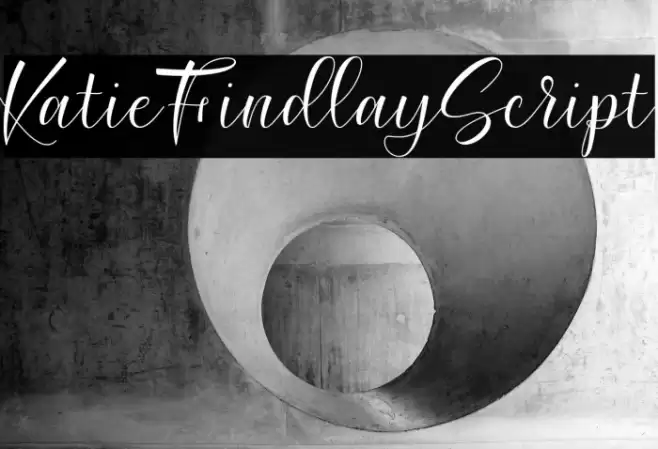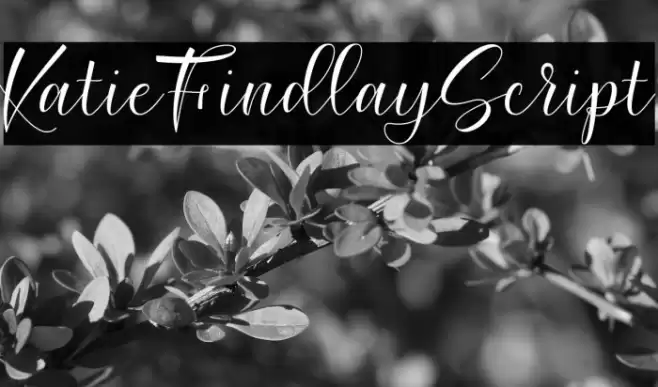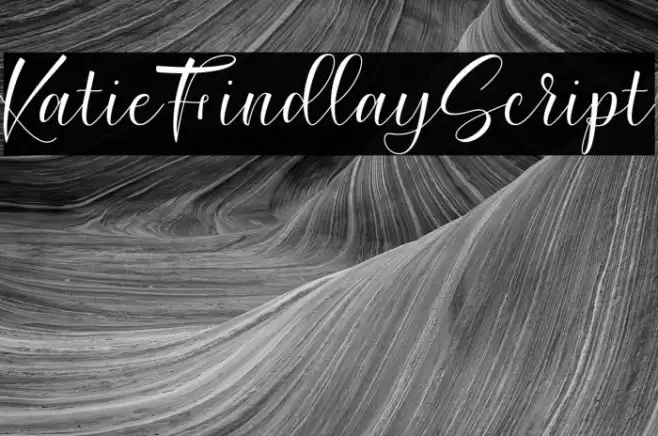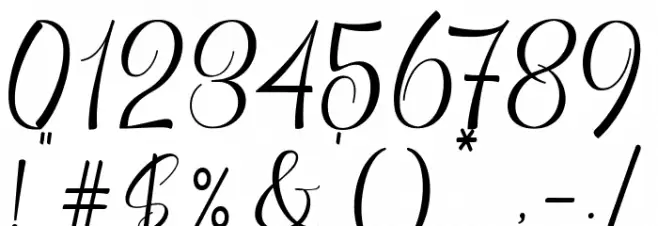
KatieFindlayScript Font
KatieFindlayScript Description
This elegant script font features a flowing, cursive style with a modern twist. The uppercase letters are characterized by their tall, graceful loops and sweeping lines, while the lowercase letters maintain a consistent fluidity and charm. The numerals are stylishly integrated with the same cursive flair, making them visually cohesive with the alphabet. Special characters are designed with a similar attention to detail, ensuring they blend seamlessly with the overall aesthetic. The font's delicate strokes and refined curves make it ideal for projects that require a touch of sophistication and elegance.
A modern, elegant script font with flowing, cursive lines and graceful loops from Regular fonts.
- Proposed Projects: Ideal for wedding invitations, elegant branding, greeting cards, and upscale packaging.
- Overall Style: Elegant, Modern
- Use Case: Headlines, Invitations, Branding